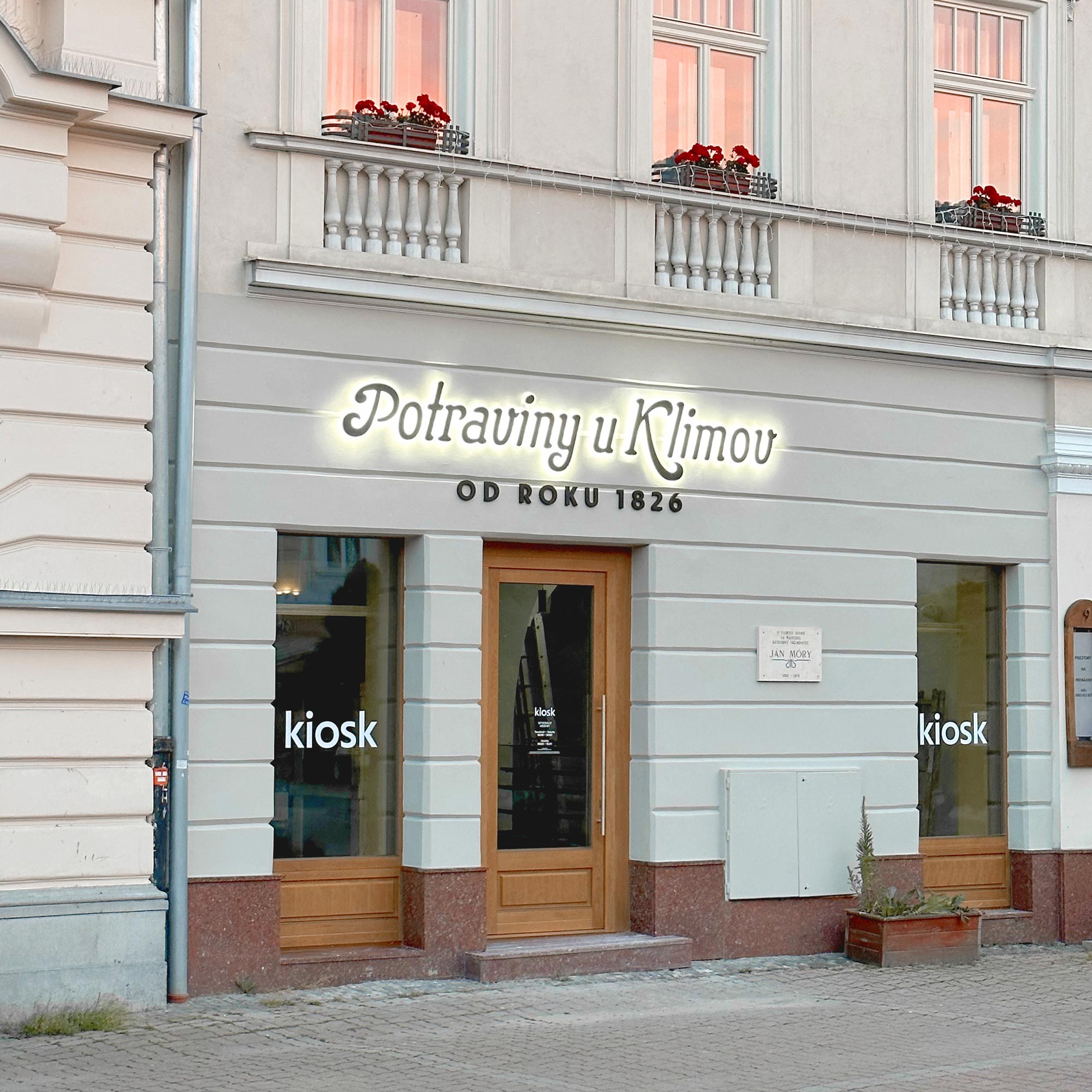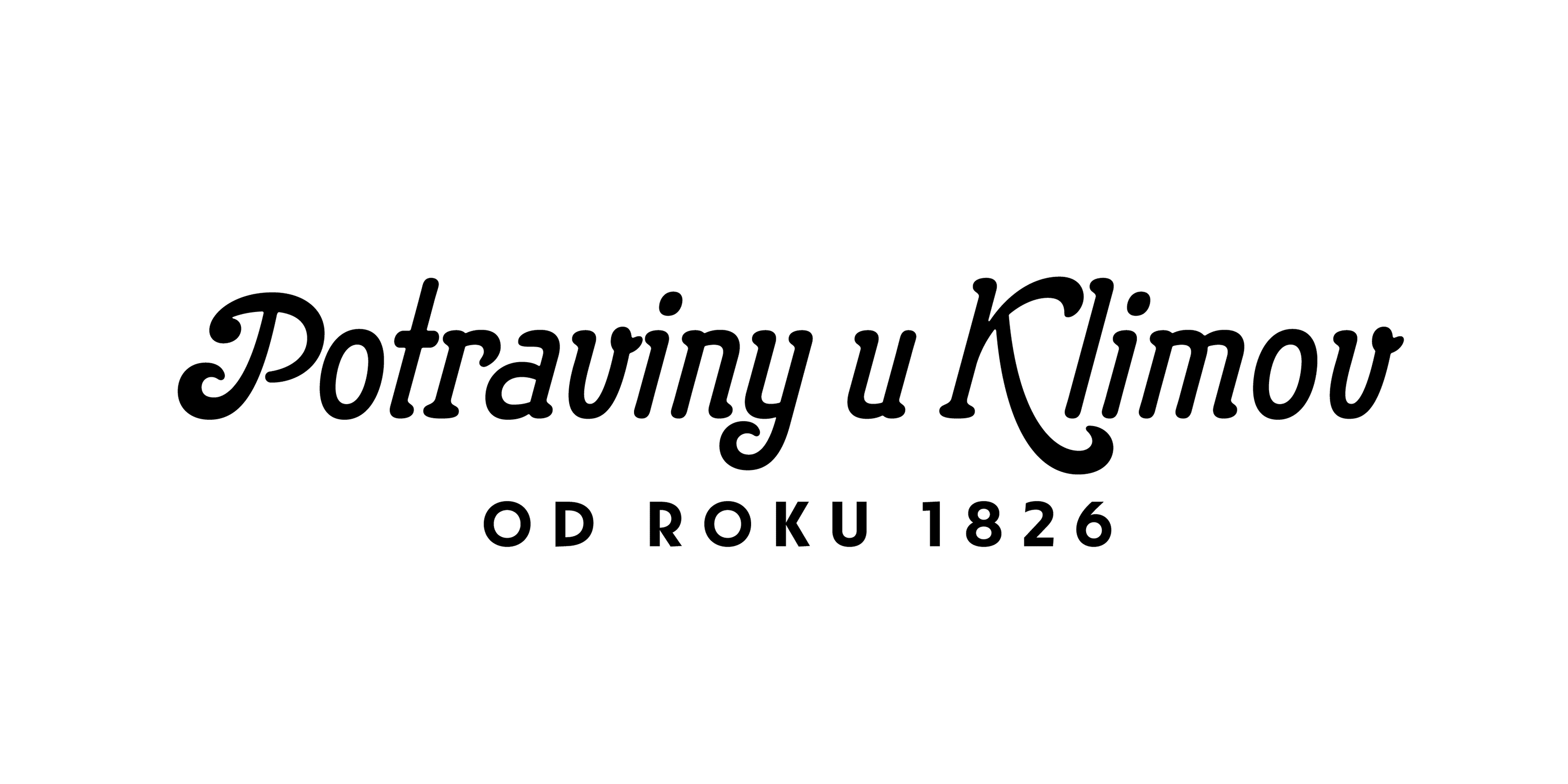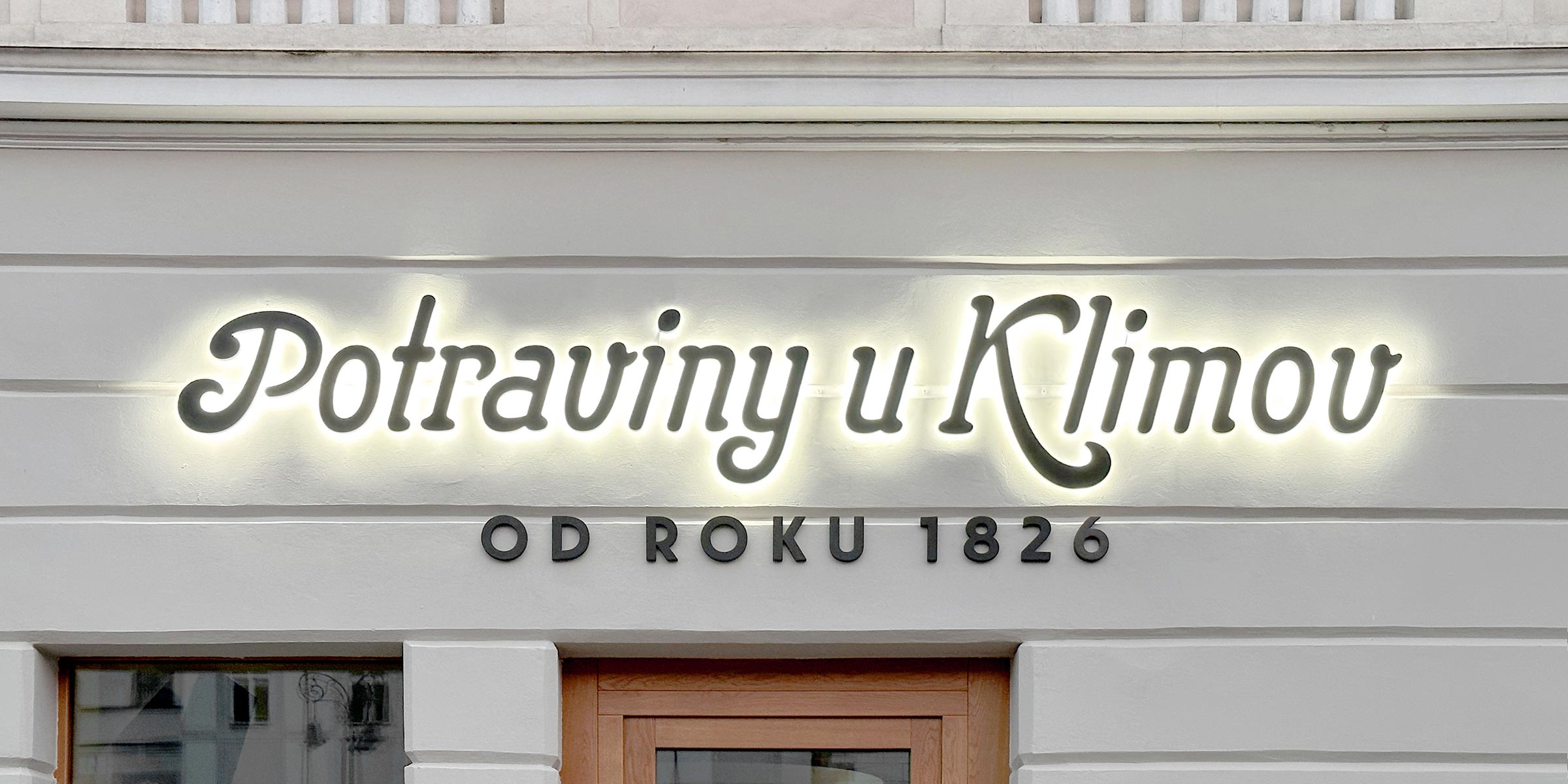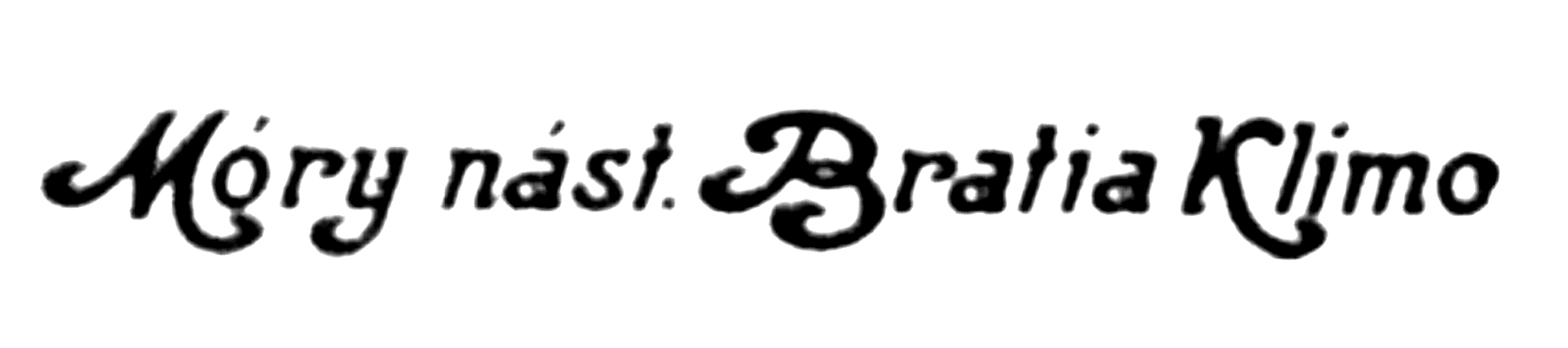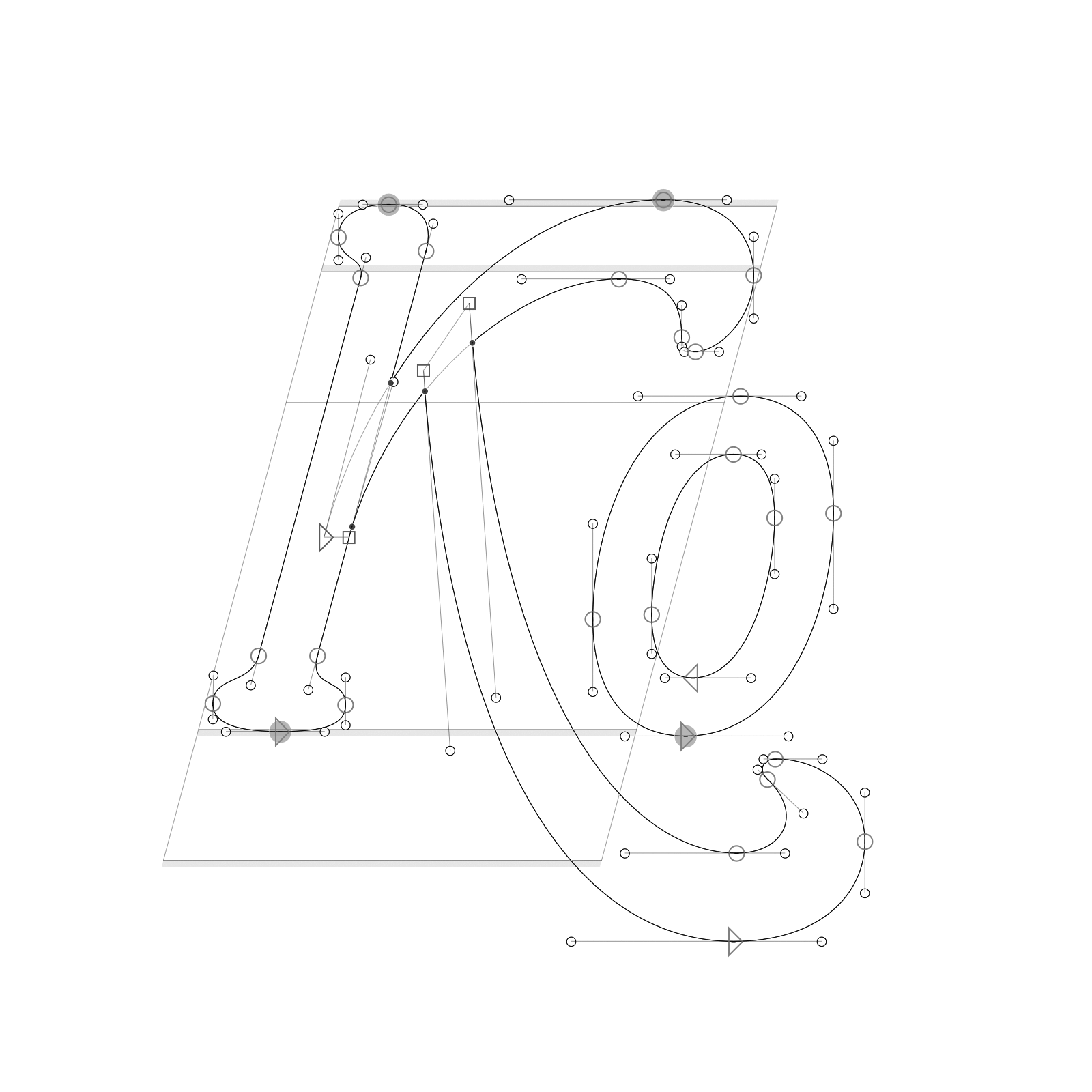
Klimo Groceries
Digitization of the original typeface and restoration of the historical sign of the Klimo Groceries store at the SNP Square in Banská Bystrica.
The original store, founded by Ján Móry, was sold to the Klimo family in the 1930s, and shortly after the characteristic signage was added to the facade. Originally Móry cont. Klimo Brothers, later renamed Klimo Brothers and at the end of the 20th century the store’s name changed again to Klimo Groceries, this time with updated design that didn’t follow up on the previous typography. It is one of the oldest preserved names of establishments in Banská Bystrica.
Changes to the store's signage over time.